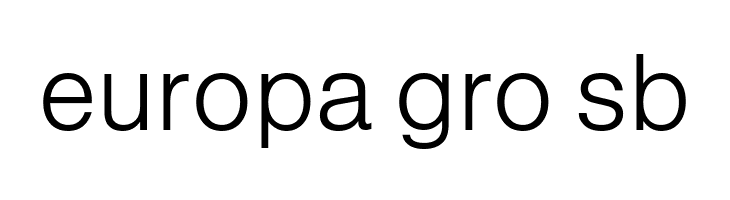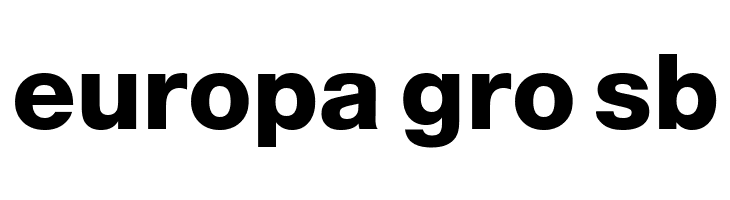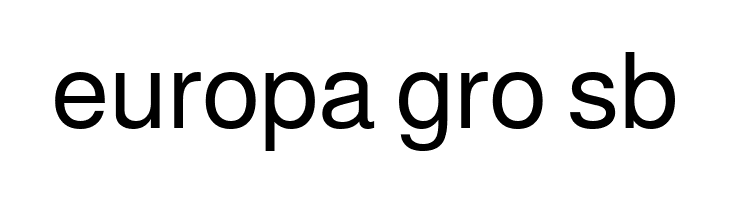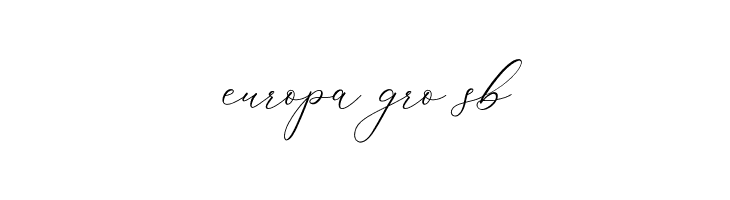
A playful, hand-drawn font with bold, irregular strokes and a whimsical style.
A playful and elegant script font with flowing, connected letterforms.
A modern and artistic font with flowing curves and sharp edges.
An elegant script font with fluid, cursive strokes and a sophisticated appearance.
A modern, clean sans-serif typeface with balanced proportions and consistent stroke width.
A bold, modern sans-serif font with clean lines and strong readability.
A bold, modern sans-serif typeface with strong visual impact.
A modern, light sans-serif font with clean lines and balanced spacing.